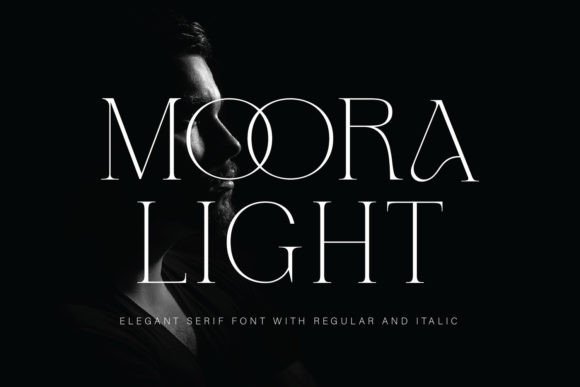
Prepare to be mesmerized by Moora Light, a captivating serif font that transports you to a world of vintage charm and timeless elegance. Crafted with meticulous attention to detail by the skilled hands of rmdndsign, this typeface embodies the essence of nostalgia, evoking a sense of warmth and familiarity that will elevate any design project to new heights of sophistication.
With its graceful curves and delicate flourishes, Moora Light dances across the page like a love letter from a bygone era. Its timeless aesthetic lends a touch of old-world charm to modern designs, creating a captivating contrast that is both alluring and unforgettable. Whether you seek to add a touch of vintage flair to your branding materials, create enchanting invitations that transport guests to a bygone era, or craft heartfelt letters that resonate with a timeless charm, Moora Light will effortlessly elevate your creations to a realm of unforgettable beauty.
Step into the enchanting world of Moora Light and let its vintage allure captivate your imagination. Embrace the power of nostalgia and unlock a world of creative possibilities with this exquisite serif font. Its versatility knows no bounds, as it effortlessly complements a wide range of design styles, from classic and elegant to modern and edgy.
Indulge in the exquisite details that define Moora Light. Each letterform is a masterpiece, adorned with subtle nuances and delicate flourishes that whisper tales of a time gone by. The carefully crafted serifs add a touch of sophistication, while the generous spacing ensures readability and clarity, making it an ideal choice for both print and digital designs.
Whether you seek to create stunning logos that evoke a sense of heritage, design captivating posters that transport viewers to a bygone era, or craft enchanting social media graphics that exude vintage charm, Moora Light is the perfect companion for your creative journey. Its timeless beauty and versatility will add a touch of magic to every project you undertake, leaving a lasting impression on all who behold it.